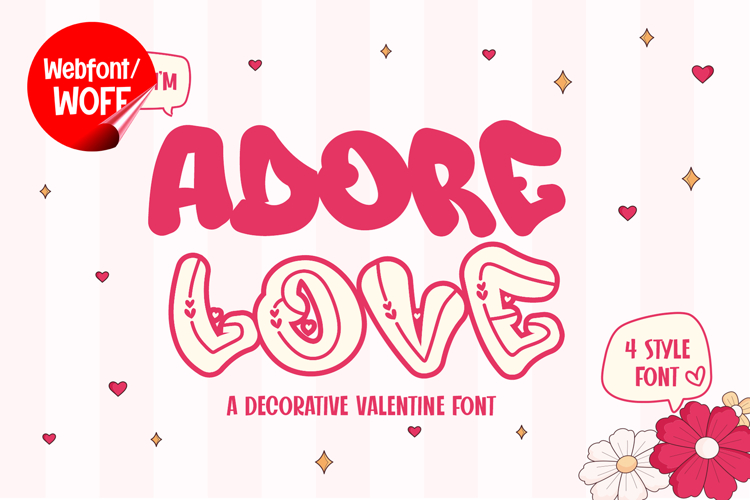
Adore Love | Chubby Valentine Decorative Webfont
Adore Love is a chubby Valentine decorative webfont designed to bring sweetness, warmth, and playful romance into modern website design. Inspired by Valentine themes, bubbly lettering, and cute decorative typography, this font features rounded shapes and charming curves that create a cheerful and lovable visual identity. It is an excellent choice for projects that aim to deliver a fun, romantic, and eye-catching typographic style.
Adore Love includes a complete set of uppercase characters designed with chubby decorative forms. The letterforms are bold, rounded, and playful, creating a soft and friendly appearance that instantly attracts attention. These characteristics make it ideal for headlines, banners, hero sections, product displays, and featured content where a cute and romantic atmosphere is needed.
In addition to letters, the font includes numbers and punctuation, allowing flexible usage across various parts of a website. It works well for Valentine promotions, wedding invitations, greeting cards, beauty brands, lifestyle blogs, and social media campaigns. Each character maintains a consistent decorative style, ensuring a cohesive and visually appealing design throughout the layout.
With multilingual support, Adore Love includes a wide range of accented characters, making it suitable for international websites and global audiences. This ensures content remains clear and visually consistent across different languages while preserving the playful and romantic aesthetic.
The chubby decorative style of Adore Love makes it especially suitable for Valentine-themed websites, candy brands, kids’ products, feminine branding, and creative digital campaigns. Its rounded and cheerful appearance adds warmth and charm, helping websites stand out in visually competitive environments. The soft curves and bubbly forms create a joyful and inviting visual experience.
Despite its decorative and playful appearance, Adore Love is designed with readability in mind. The spacing and proportions are carefully balanced to ensure clarity, particularly in display sizes. This makes it effective for impactful headings and short content elements where both style and usability are important.
Adore Love is a webfont that combines cute decorative aesthetics with modern web performance. Its chubby letterforms, romantic character, and playful style create a distinctive typographic presence that enhances website design. For projects that require a sweet, charming, and visually engaging display font, Adore Love offers a delightful and versatile solution.